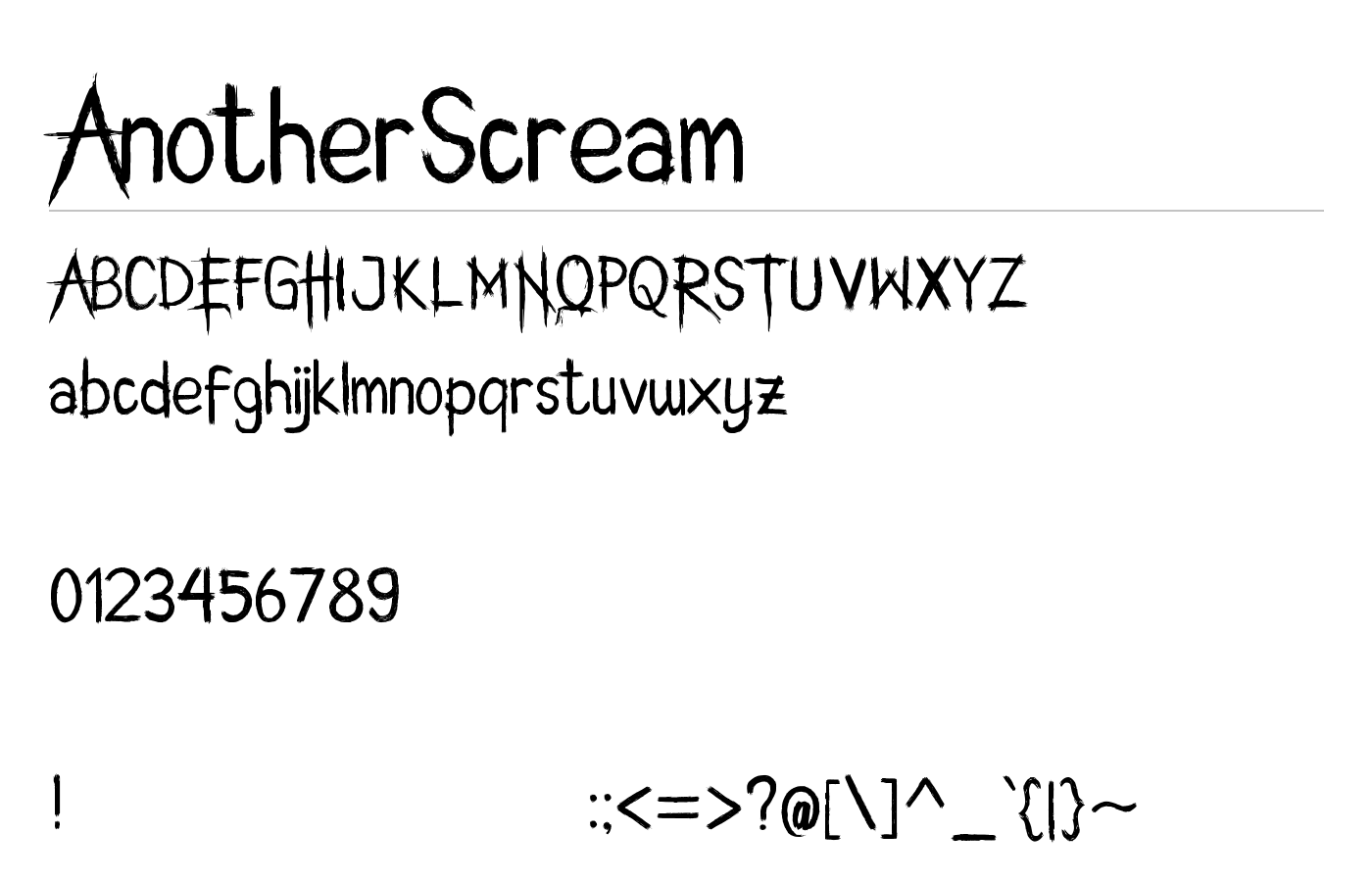
AnotherScream is a quirky, hand-drawn sans serif font with a rough, edgy texture that gives it a slightly eerie, distressed look. Its irregular strokes and sharp, uneven edges make it perfect for creative projects needing a bold, expressive style, such as horror themes, posters, or unique branding where an informal, striking personality is desired. This font stands out for its playful yet unsettling character, lending mood and impact rather than clean readability.
AnotherScream Font
About AnotherScream Font